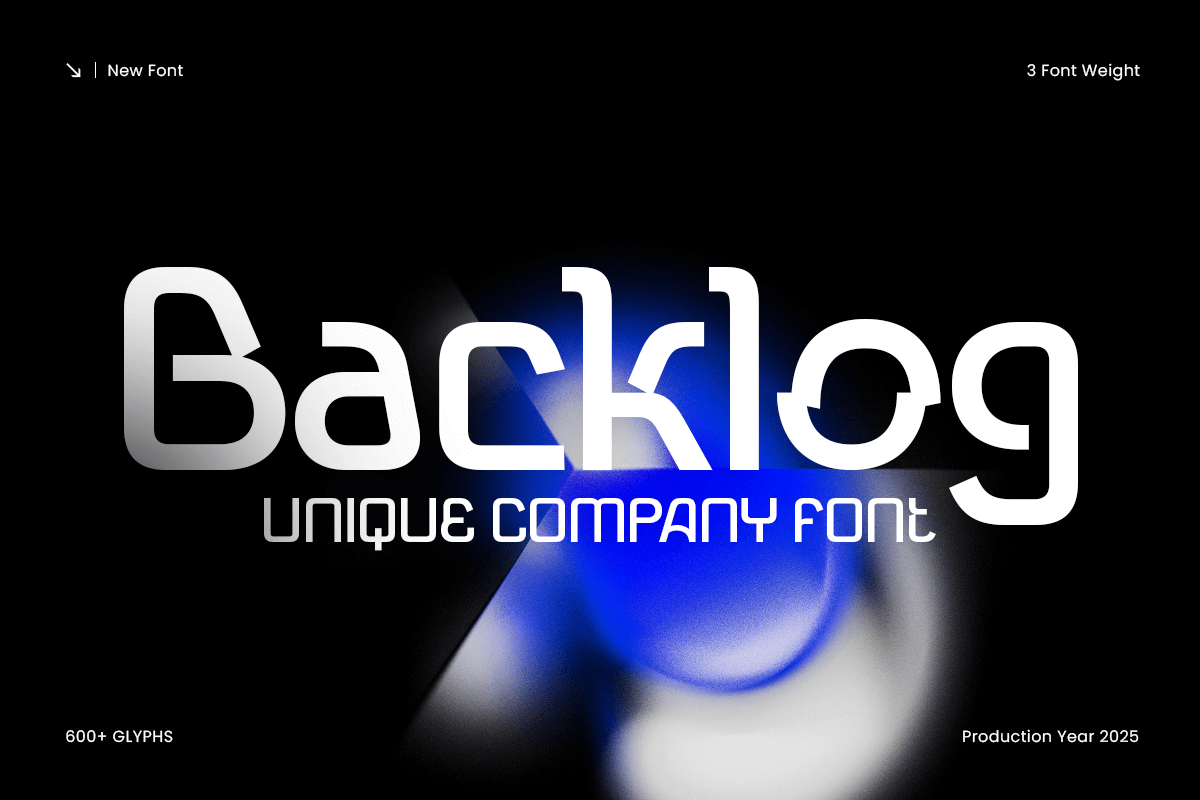
Backlog
-Unique Modern Company Font
Backlog - Unique Modern Company Font
Backlog is a unique modern company font designed to strengthen corporate branding and professional identity. With clean geometry, balanced proportions, and modern simplicity, it delivers clarity and sophistication across any business communication.
Perfect for logos, presentations, websites, reports, and brand guidelines, Backlog combines modern aesthetics with functional design. It’s ideal for startups, tech companies, architecture firms, and creative agencies looking for a distinctive yet timeless typeface that communicates trust and innovation.
Its bold structure and sharp precision ensure maximum readability, making Backlog equally effective in digital interfaces, print materials, and large-scale corporate visuals. Whether you’re building a new brand or updating your company’s visual system, this font adds a confident and modern edge.
Backlog – Unique Modern Company Font Features
• Clean, modern sans serif typeface with a professional tone
• Perfect for corporate branding, logos, and presentations
• Elegant geometric design with high legibility
• Suitable for technology, architecture, business, and creative industries
• OpenType features for advanced typographic flexibility
Build a confident and professional brand presence with Backlog – the ultimate modern company font for logos, business, and corporate design. 💼✨